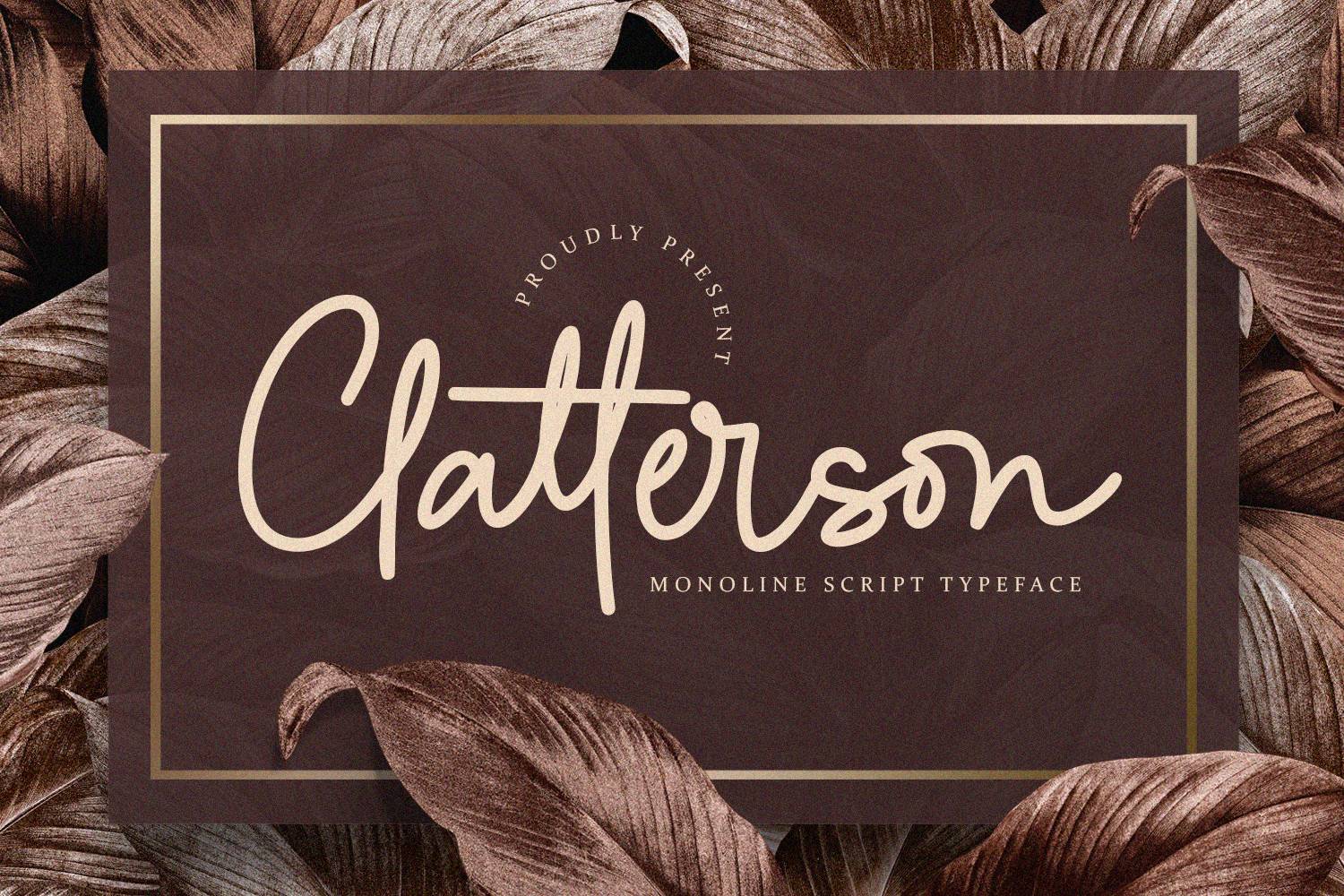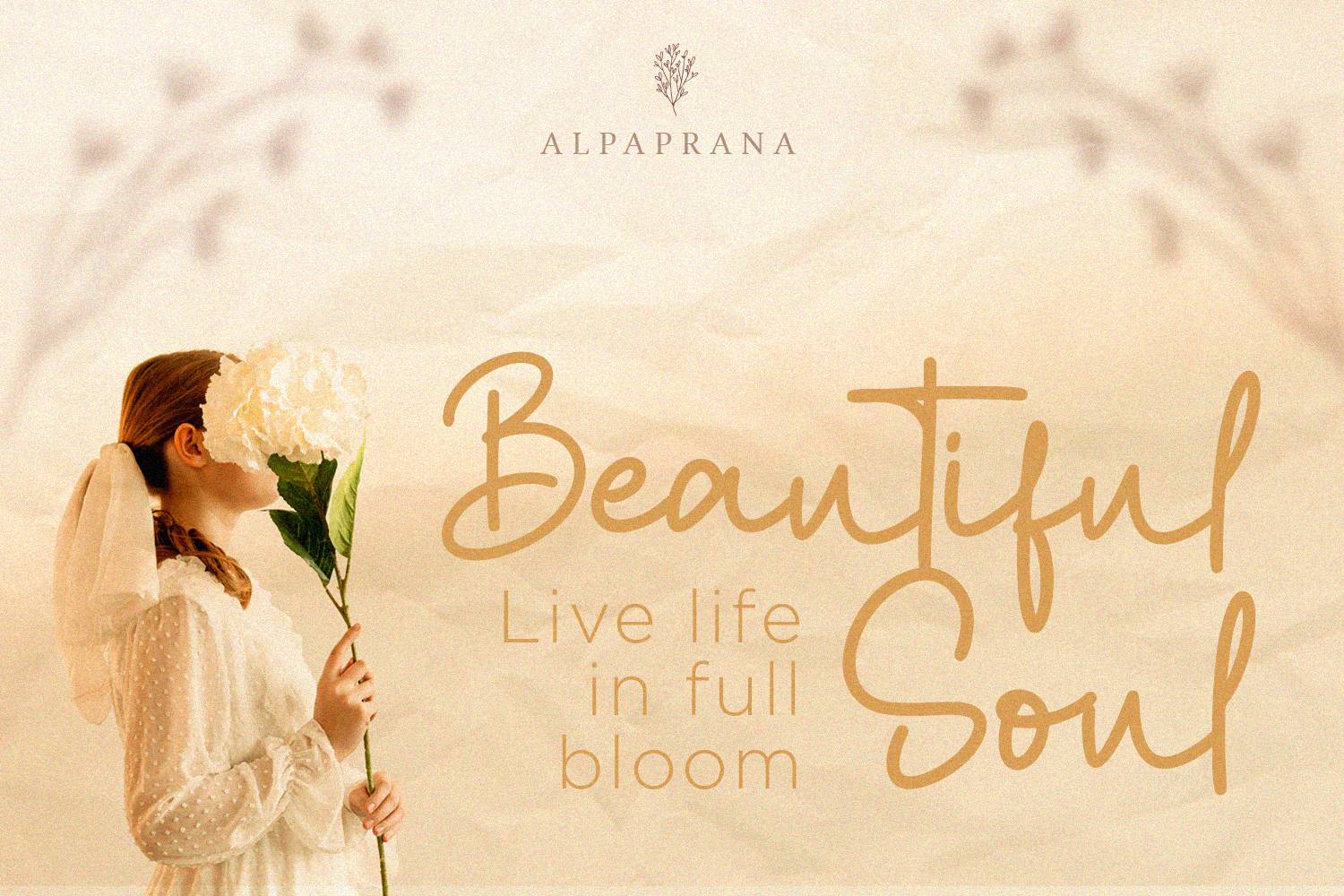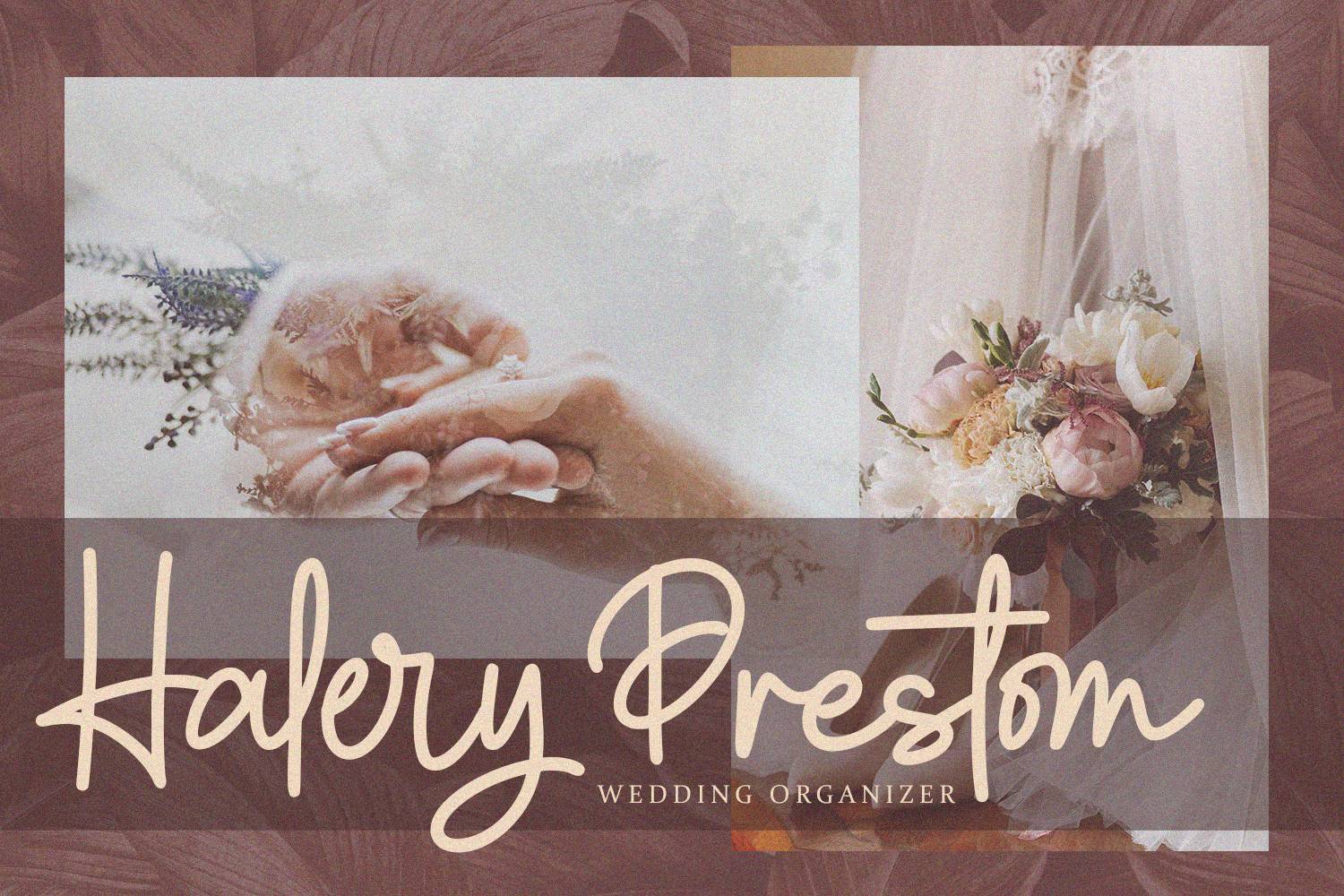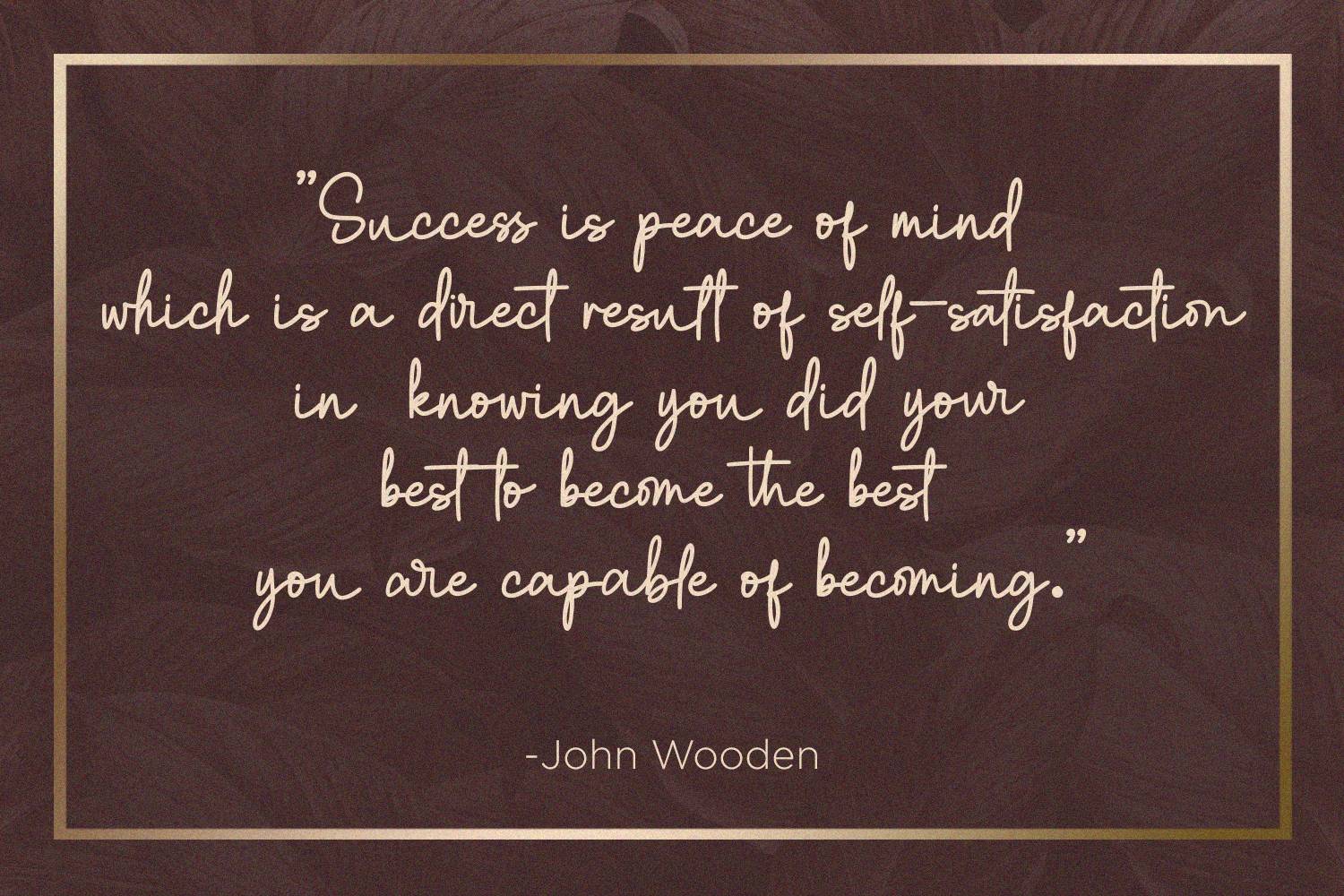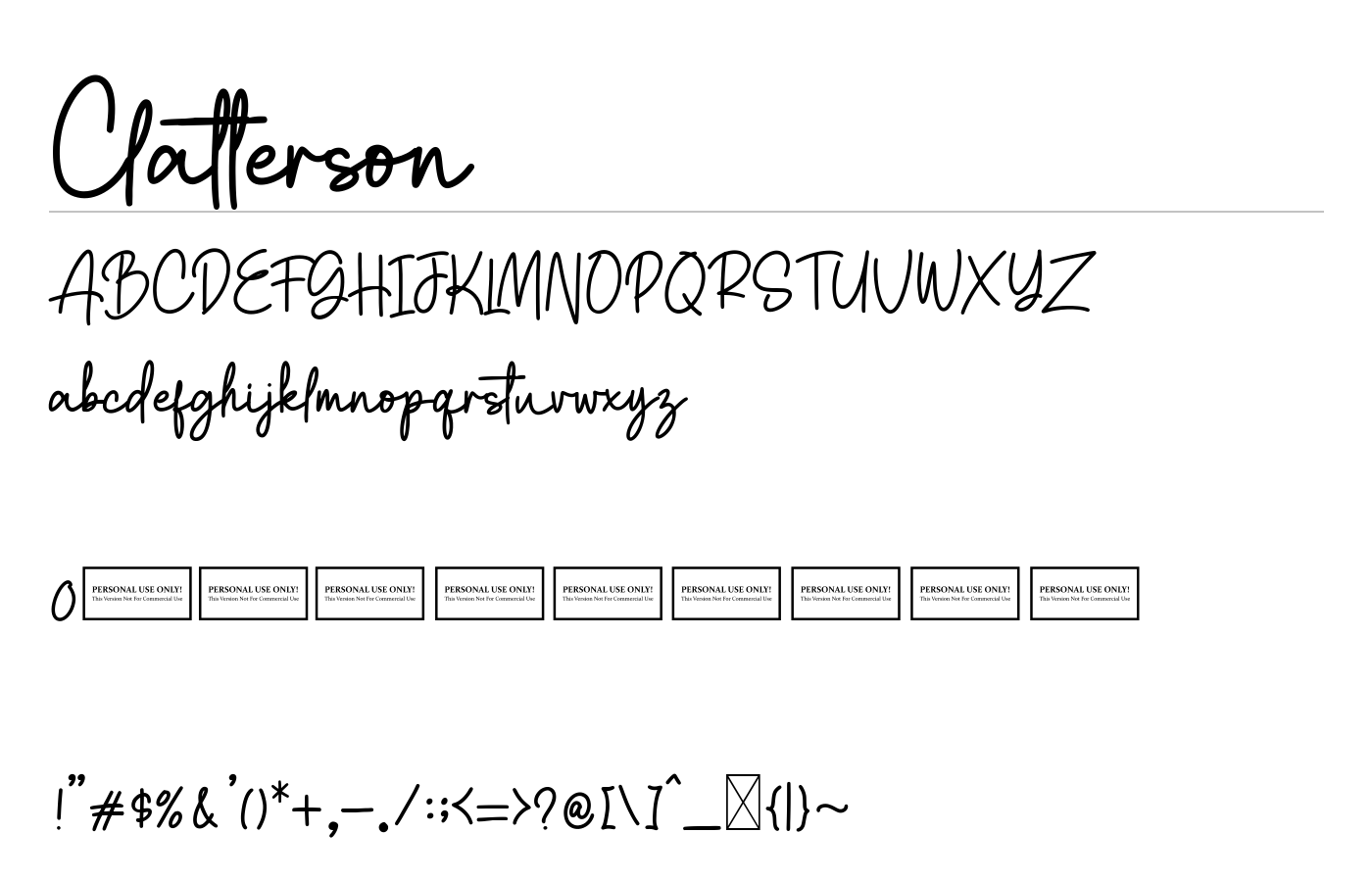
Clatterson is a lively and casual handwritten script font featuring a natural, flowing style with moderate weight and a slightly tall x-height that ensures readability. Its irregular letterforms and connected strokes give it a personal and friendly feel, making it ideal for creative projects, informal branding, and social media graphics where a warm, approachable touch is desired. This font works best in headlines, logos, and invitations where a playful yet clear handwritten style enhances the design's personality.
Clatterson Font
About Clatterson Font